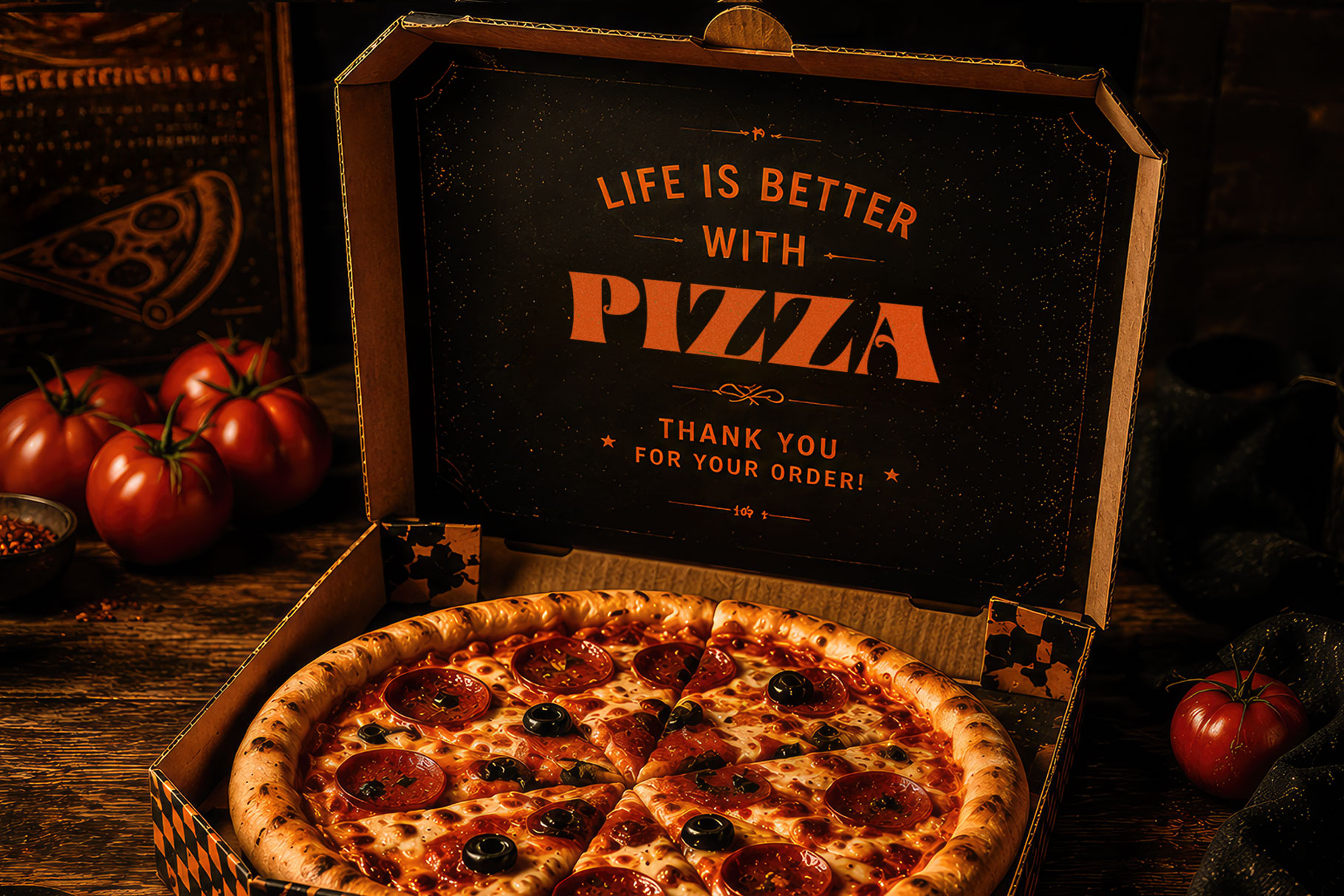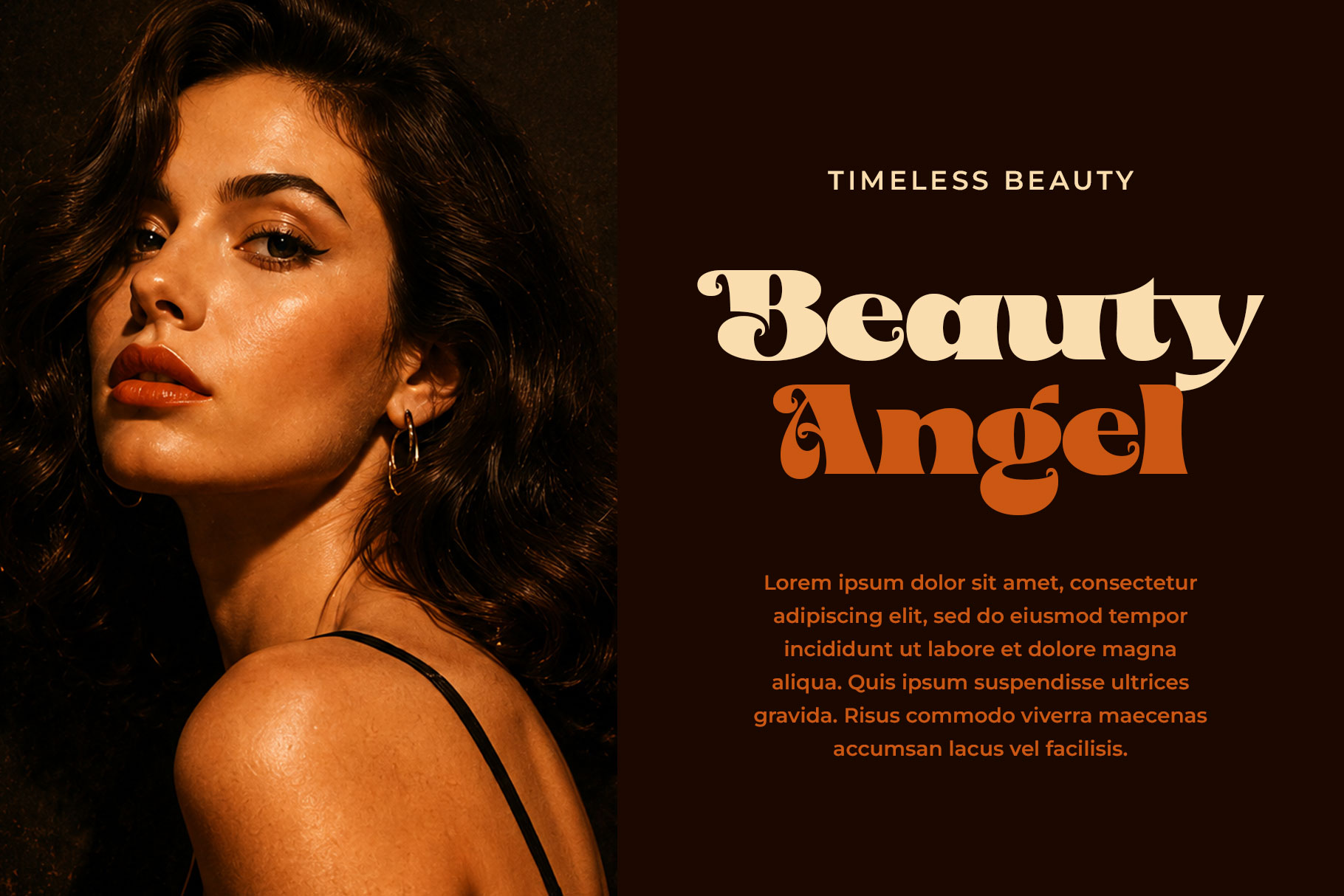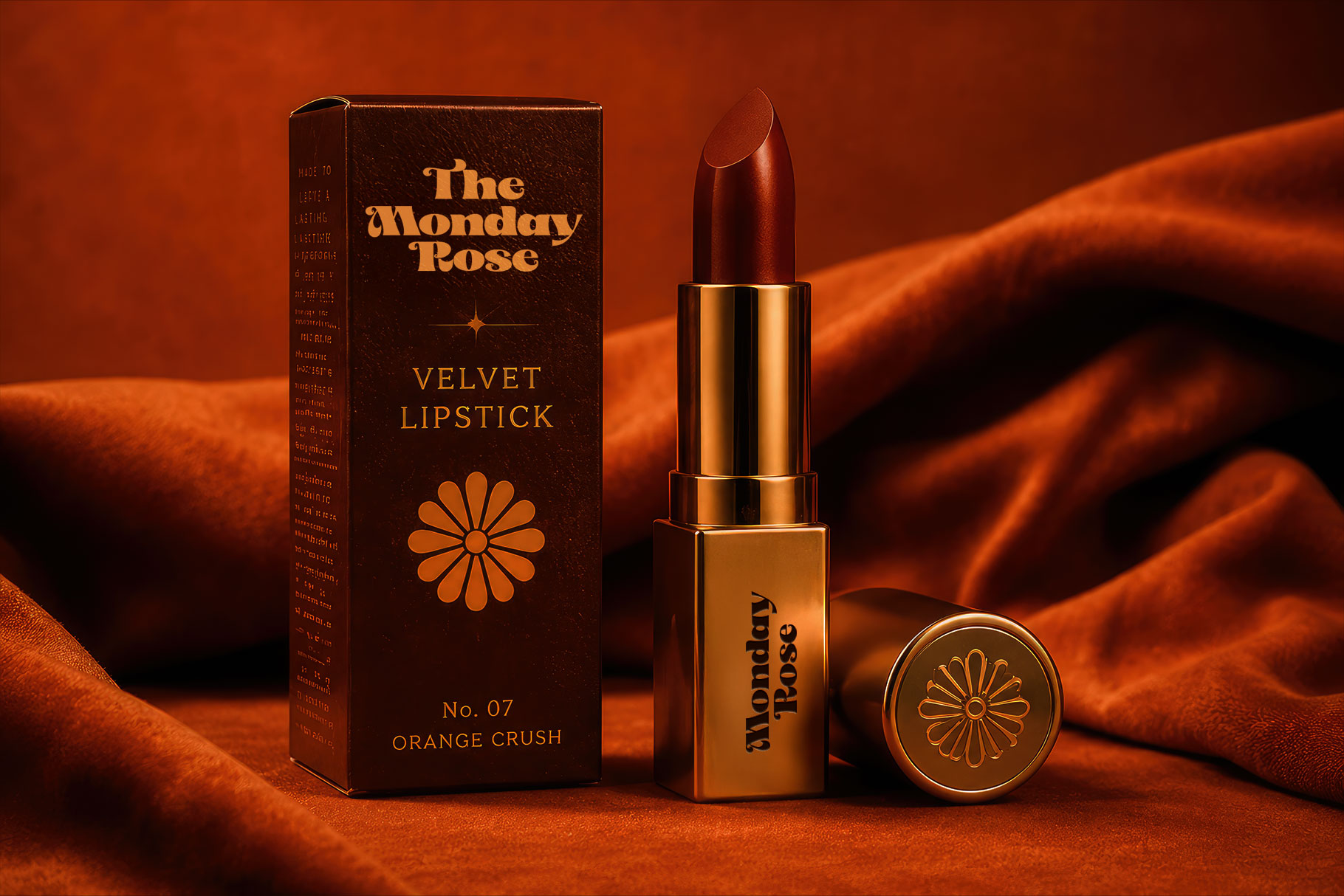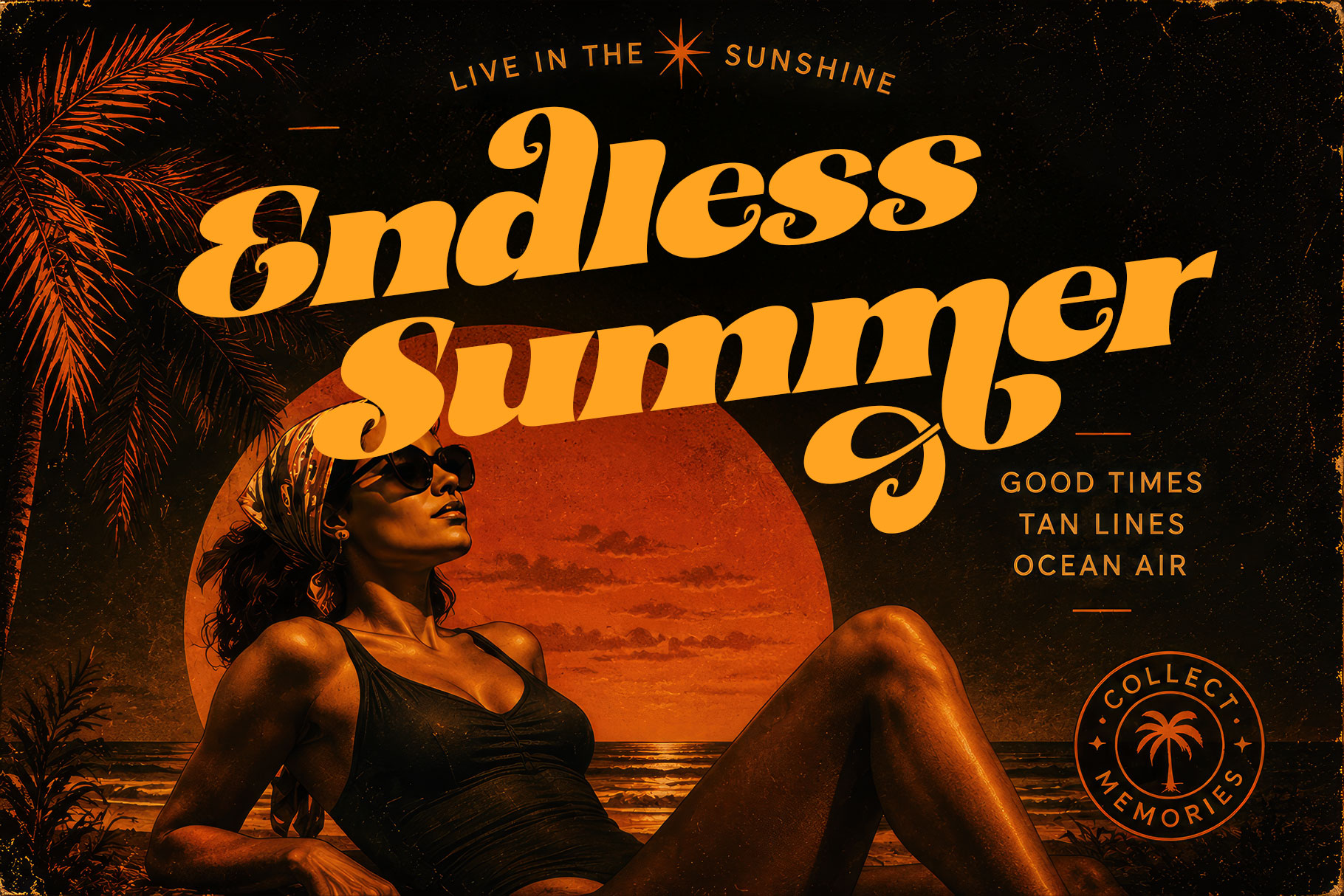
The Rivena Regular
The Rivena Italic
The Rivena is bold display font with premium 70s inspired editorial campaign blending retro decorative typography with cinematic product advertising aesthetics. The Rivena is a perfectly choice for any creative endeavor, creating, modern, lifestyle design such as logotype, title, cover, branding, display and magazine, social media posts, advertisements, printed quotes, product packaging, corporate brand, product designs, labels, watermarks, special events and any other project with retro touch.